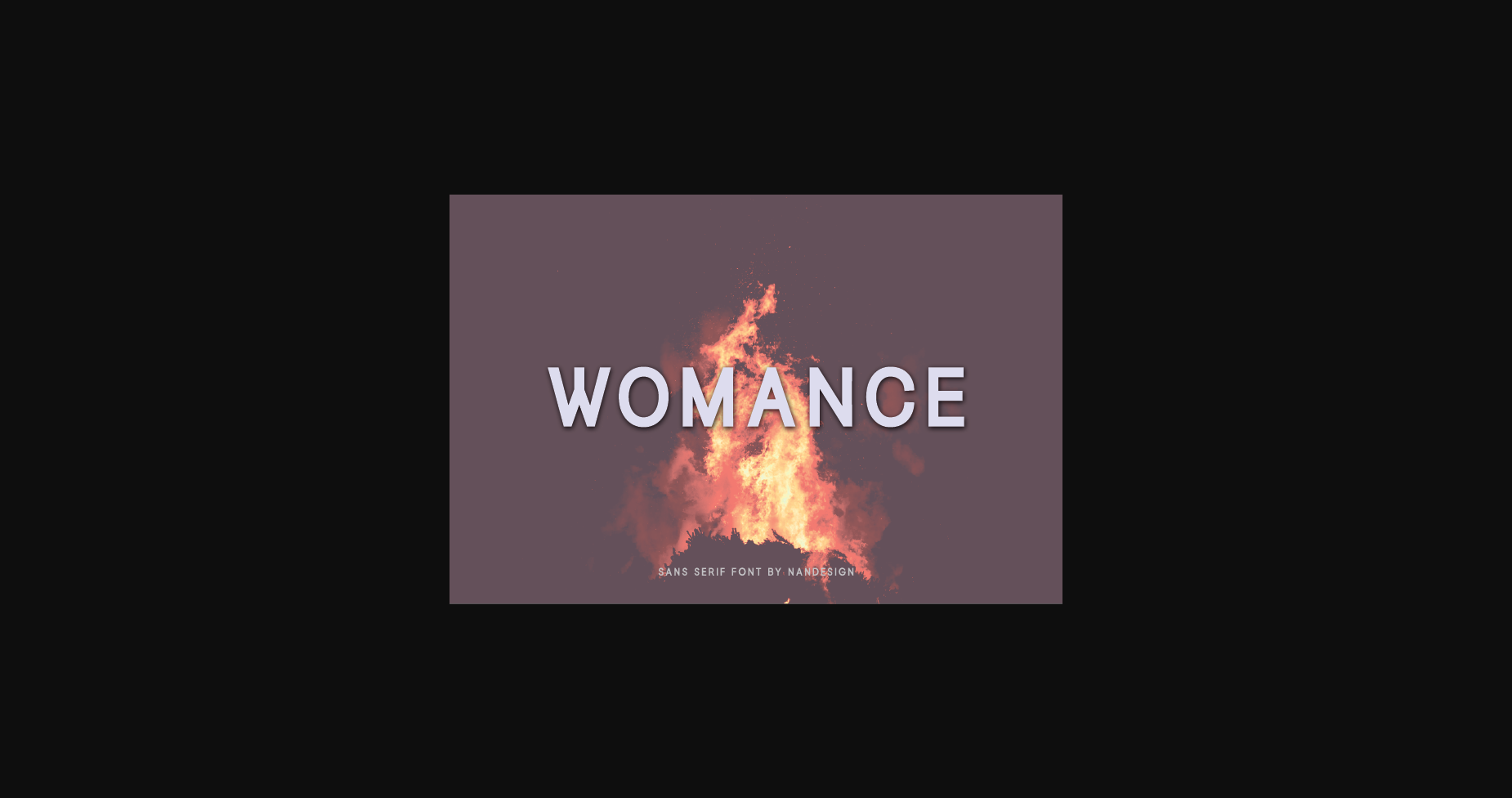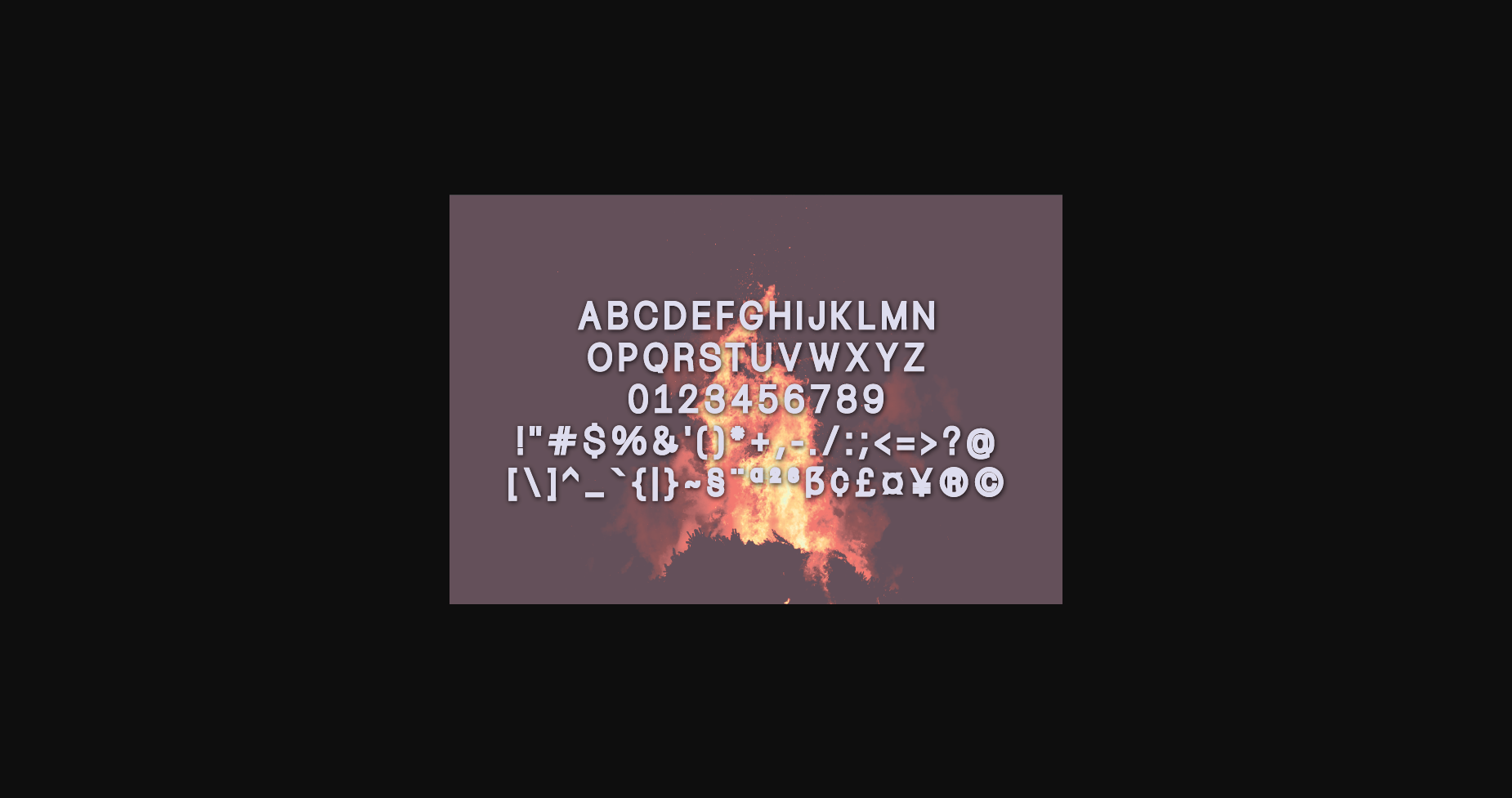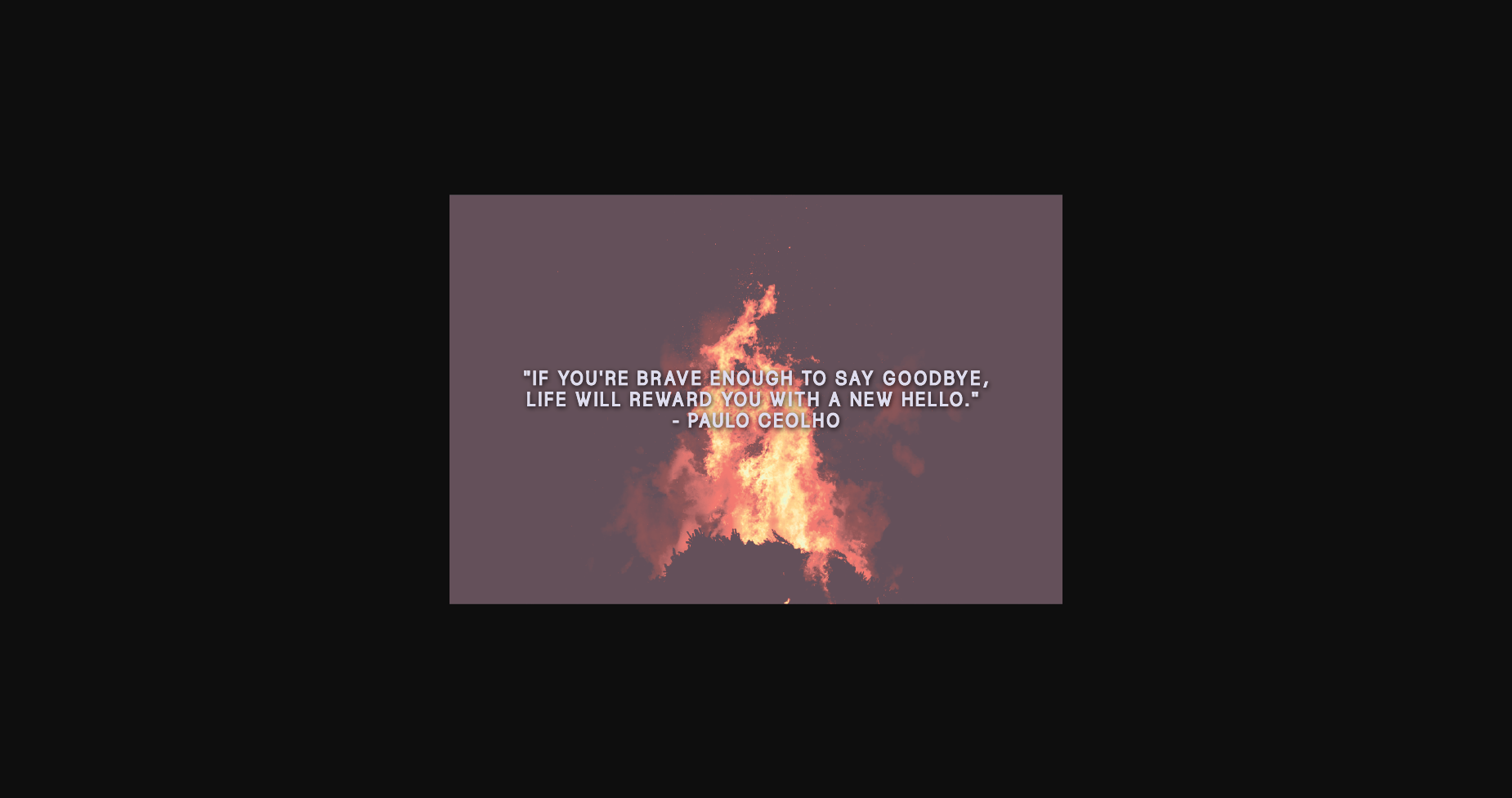
HomeSans Serif FontsWomance Font Sans Serif Fonts Womance Font FacebookXPinterestWhatsApp 1 of 5 ... Womance Font Poster 2... Womance Font Poster 3... Womance Font Poster 4... Womance Font Poster 5... About Womance Font Womance is a minimal and neat sans serif font. It can easily be matched to an incredibly large set of projects, so add it to your creative ideas and notice how it makes them stand out! DOWNLOAD NOW People also explored Save Love Font Beirnite Font Childish Notes Font Butterfly Font Joggin Font Merry Christmas Font Favoured Font Tormunt Font Herlitta Font 349 0 TagsWomanceWomance Font Previous articleLovined FontNext articleDatekole Font LEAVE A REPLY Cancel reply Comment: Please enter your comment! Name:* Please enter your name here Email:* You have entered an incorrect email address! Please enter your email address here Website: Save my name, email, and website in this browser for the next time I comment. Personal Use Free Super Caramel Font Personal Use Free Read more about this font Gaboed Personal Use Free Read more about this font Winner Personal Use Free Read more about this font Castina Personal Use Free Read more about this font BLOG Fonts That Capture the Spirit of New York City New York City is more than just a place—it’s an experience, a rhythm, a visual language... Using Fonts in Digital Marketing: Tips to Strengthen Your Brand Identity 5 Fonts That Will Dominate Design Trends in 2026 Exploring Font Trends